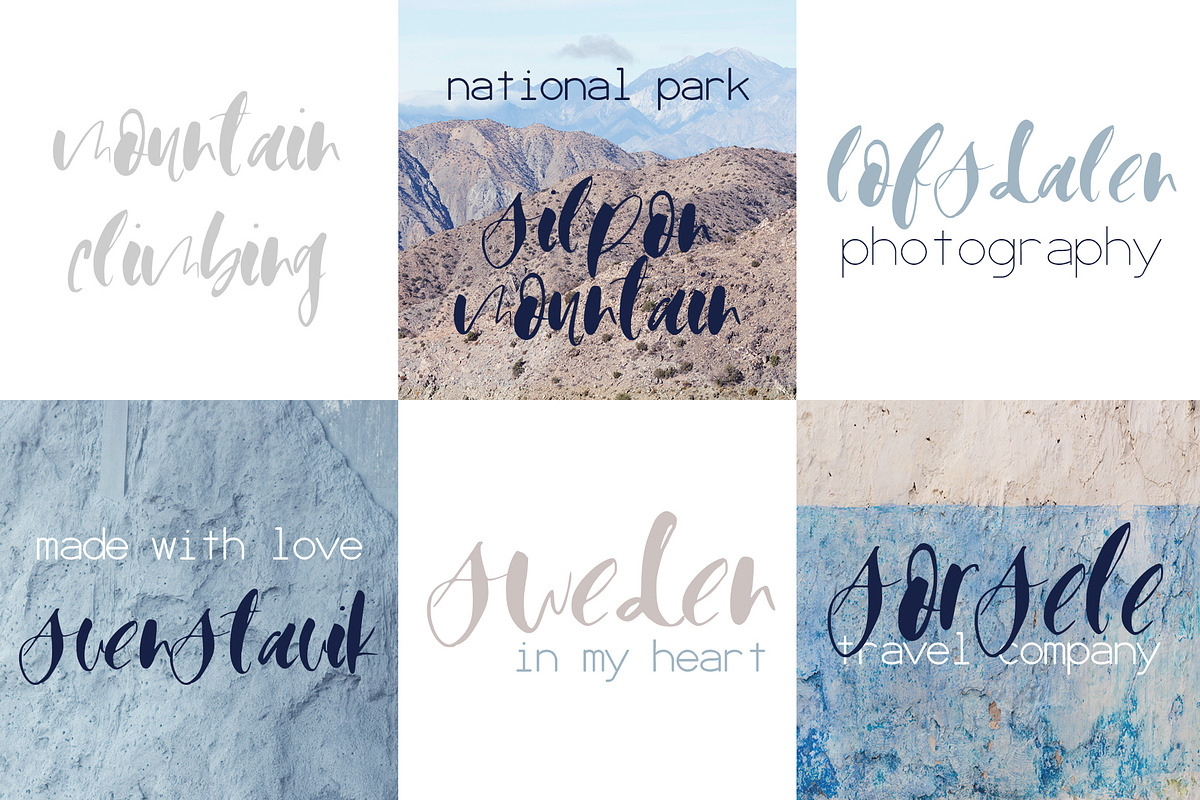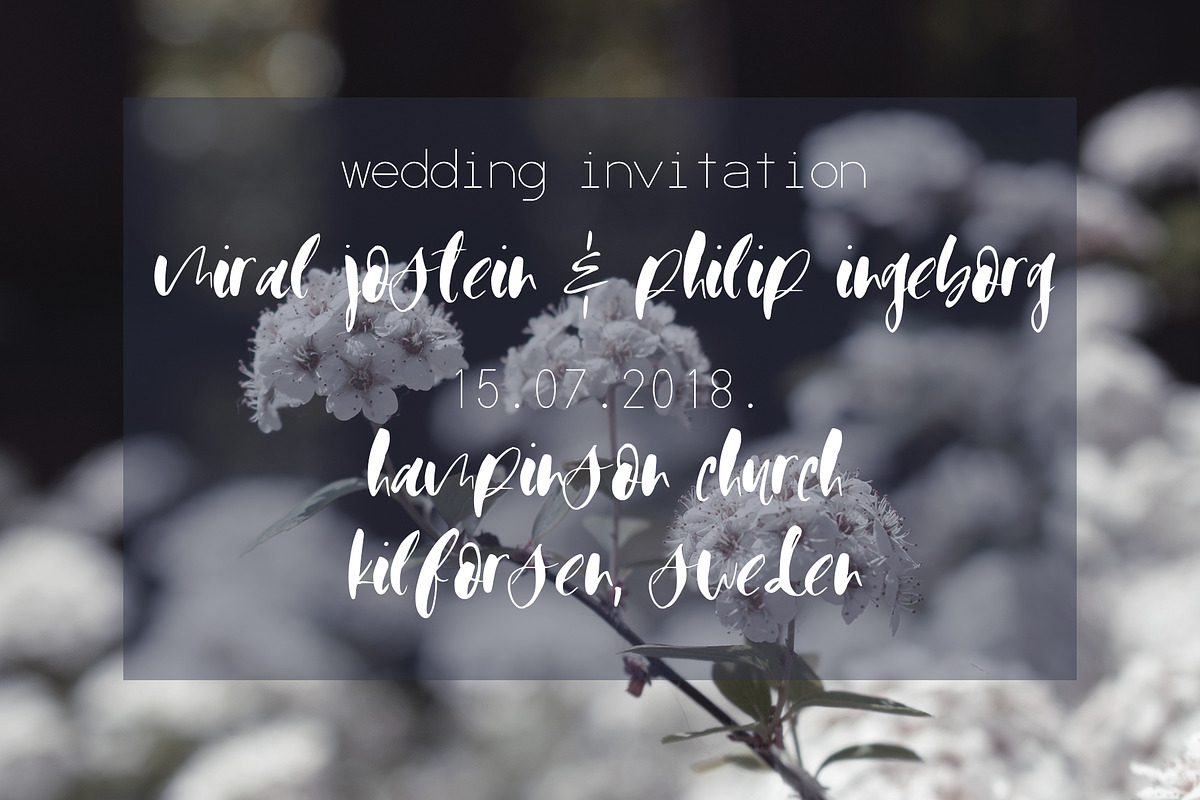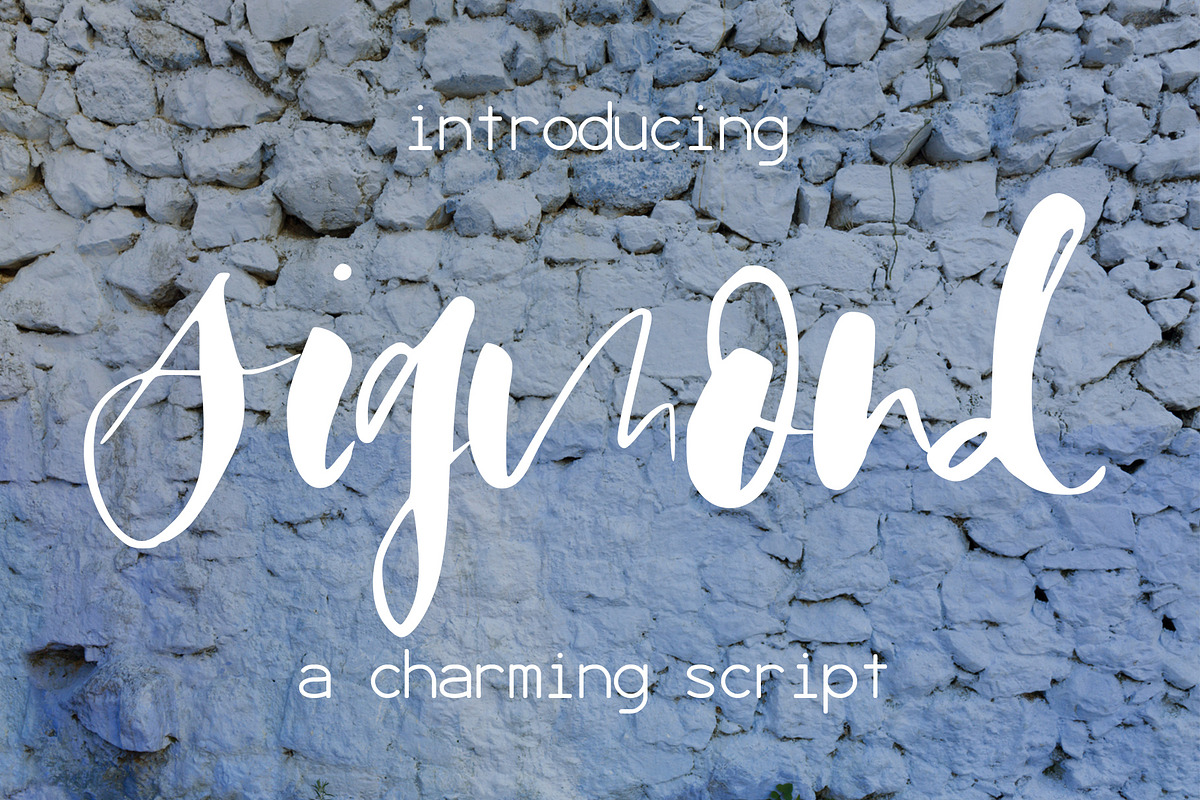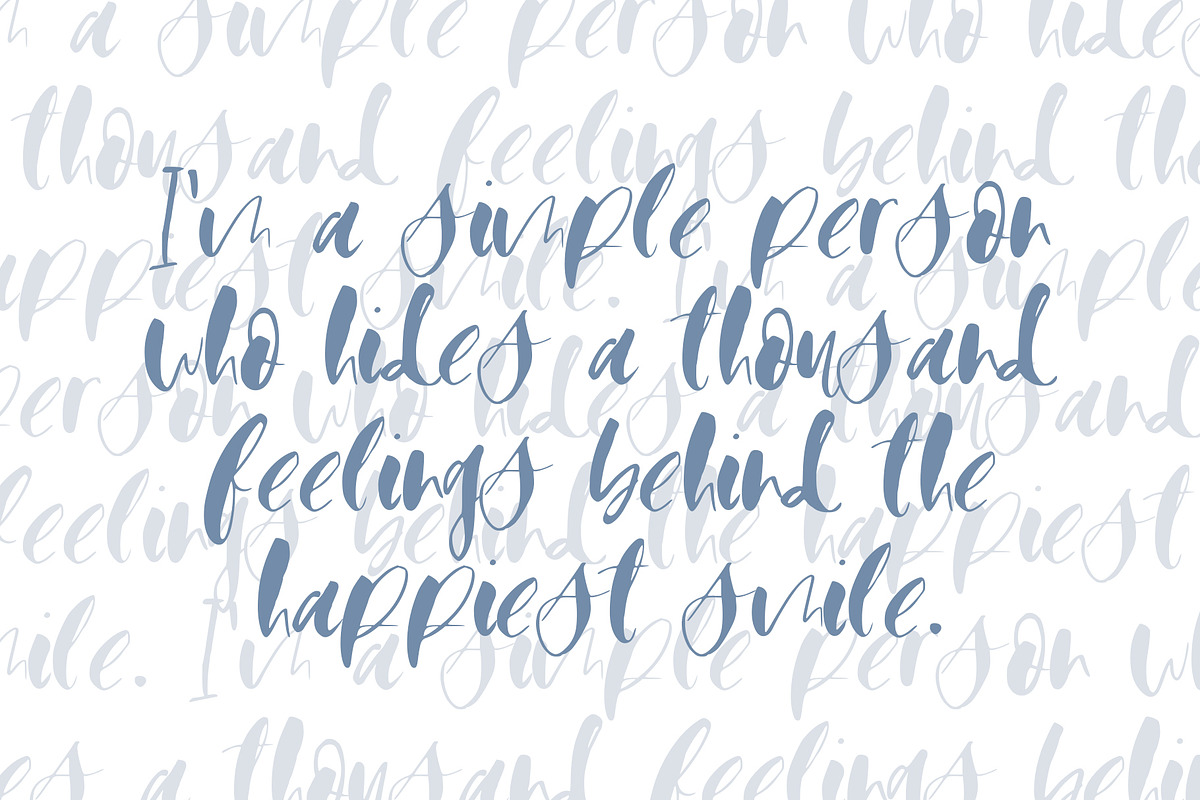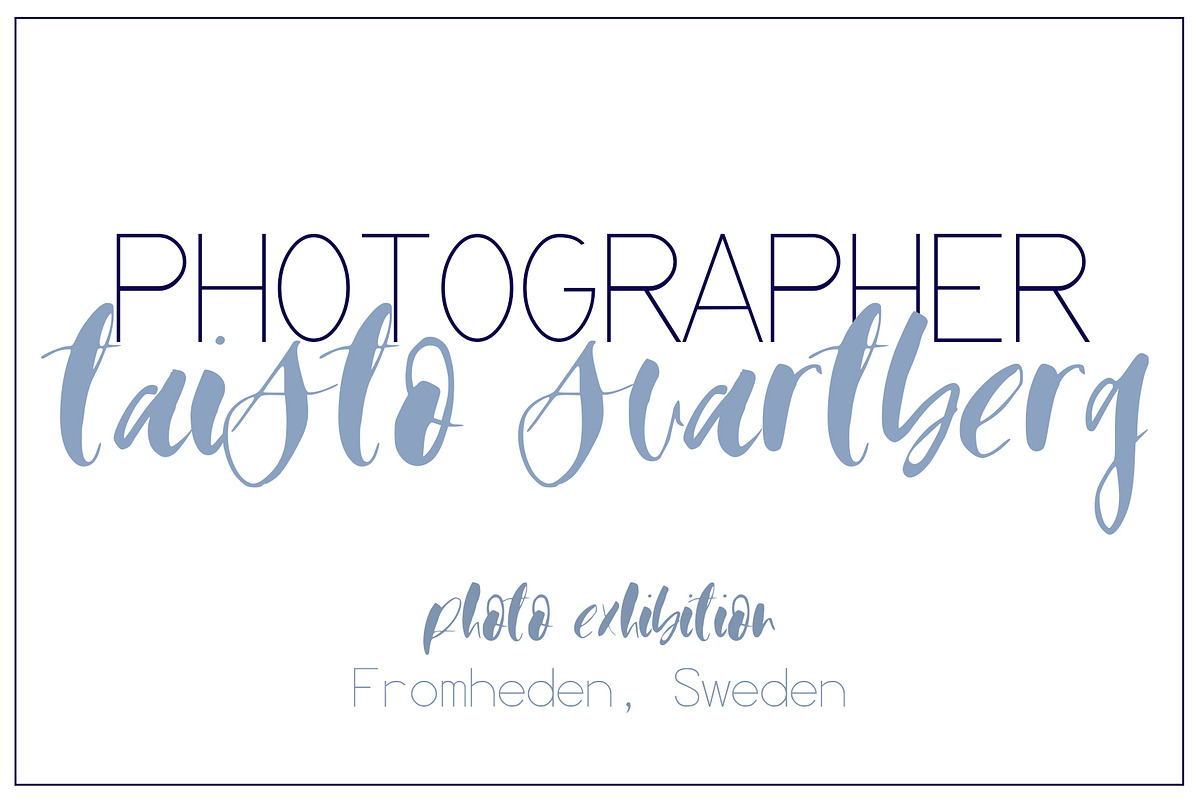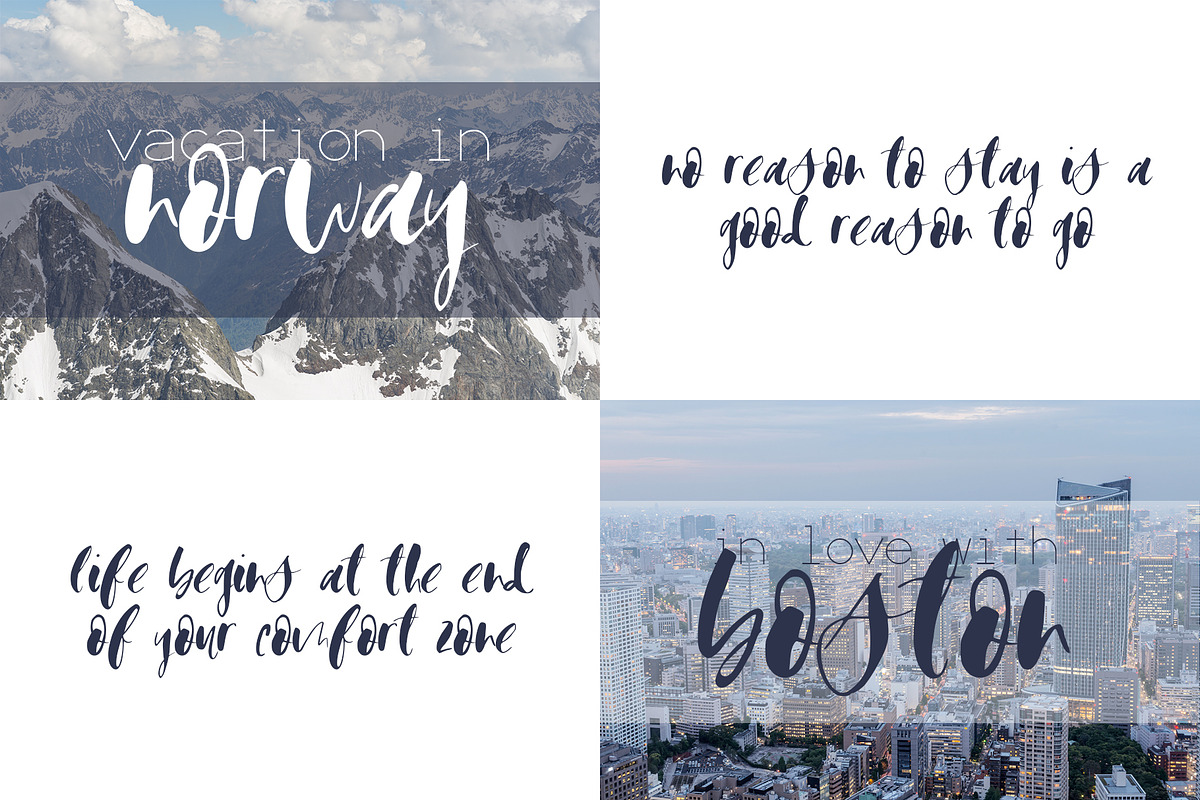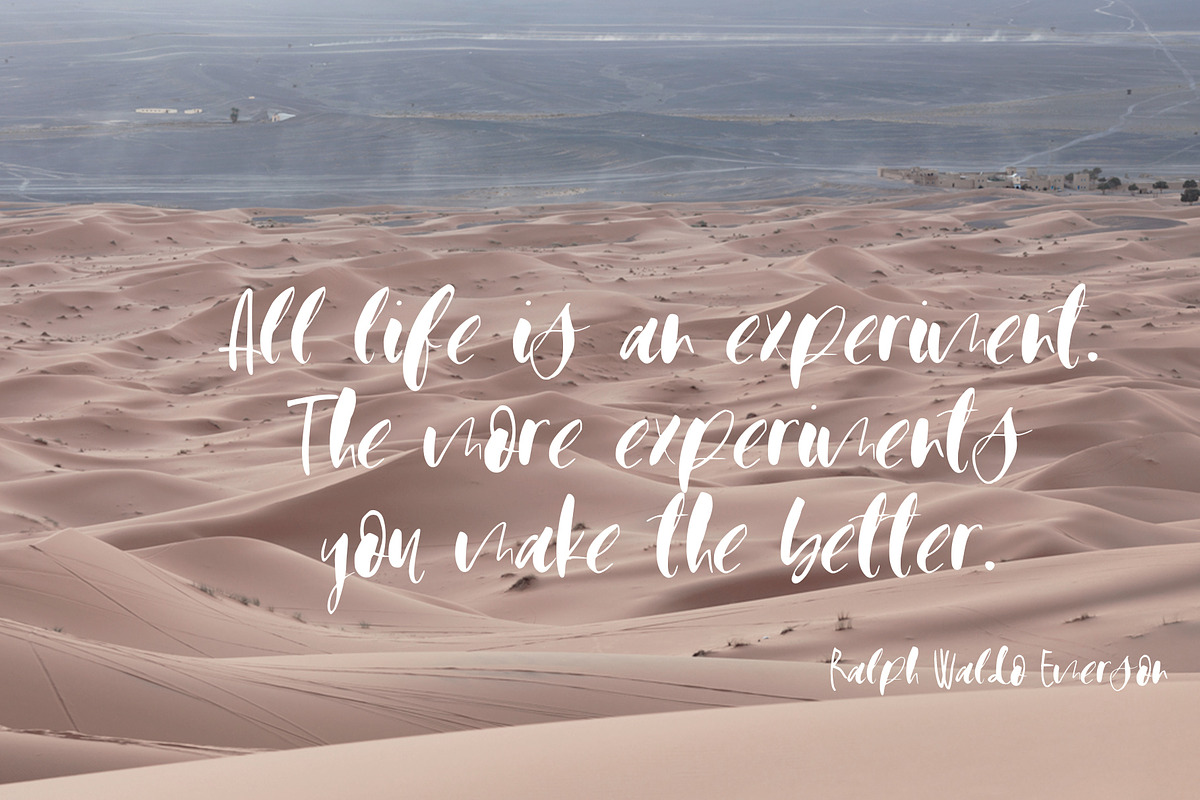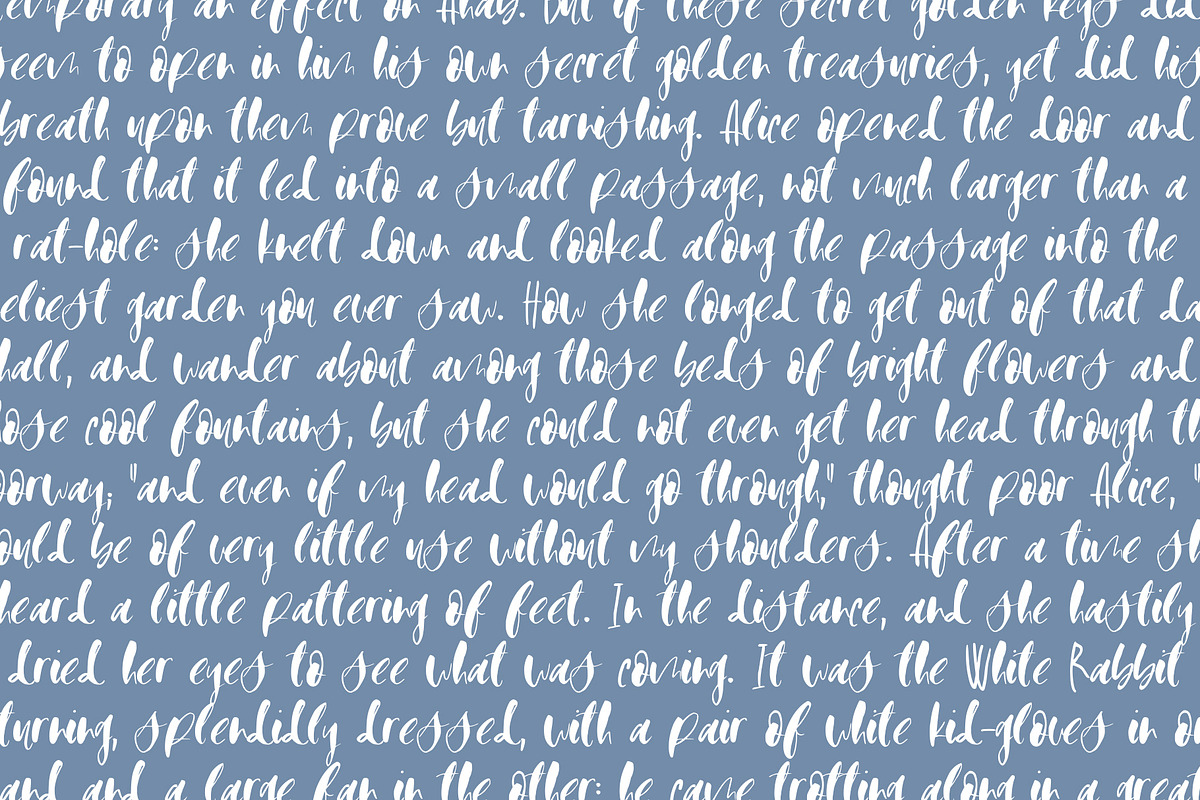
Sigmond Font
Introducing Sigmond, a charming handwritten script.💗 Perfect for any graphic and logo designs, wedding and birthday invitations.
- Sigmond font contains uppercase & lowercase characters, numbers and punctuations.
Why Sigmond Font is worth a look
Sigmond Font by SophieSaxo fits naturally into Branding, posters, packaging, typography.